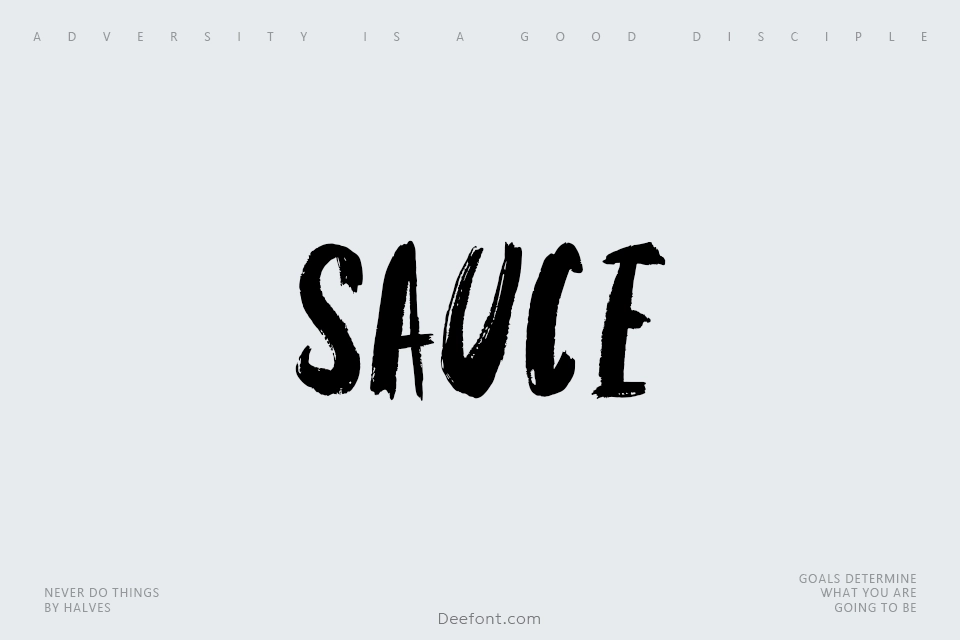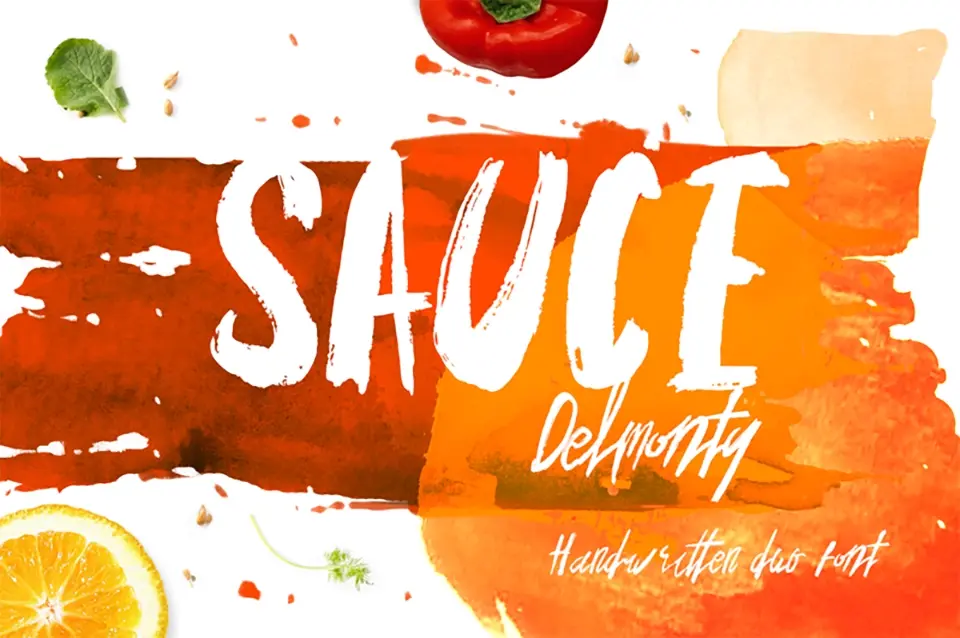
Sauce Font
Sauce is a bold, expressive brush-style script font that combines modern aesthetics with an artistic, hand-painted appearance. Featuring dynamic characters with varying stroke thickness and a slightly slanted form, this decorative display typeface conveys energy and movement. Perfect for posters, branding, packaging, and design projects that require a bold statement. The font’s handcrafted feel and contemporary style make it ideal for headlines, logos, and creative applications seeking distinctive visual impact.
Designed by:Demsey Satya Nagara (dancubs)Website